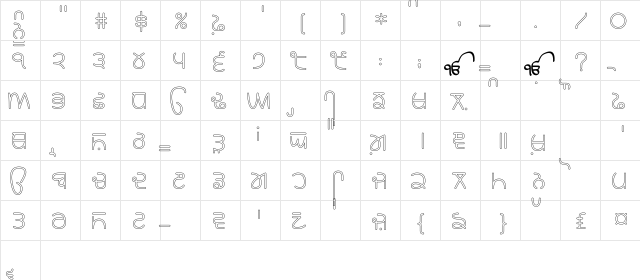
Rupe Outline 5 Medium Short
| Foundry | Paul Alan Grosse |
| Designer | Paul Alan Grosse |
Design Context for Rupe Outline 5 Medium Typeface
Rupe Outline 5 Medium brings ornamental detail and strong personality to headlines and identities, where visual impact matters more than quiet functionality.
Font Pairing: Pair with a clean neutral sans-serif for body copy to let Rupe Outline 5 Medium's character lead without overwhelming the composition.
Pro Tip: Use Rupe Outline 5 Medium exclusively at display sizes — it was designed to be seen, not read at length. Let a neutral companion handle body copy.